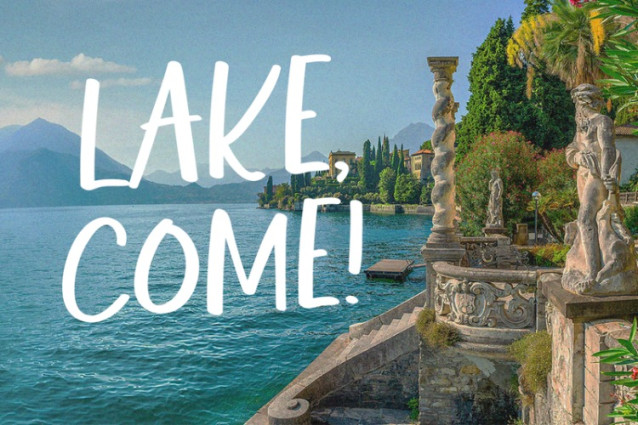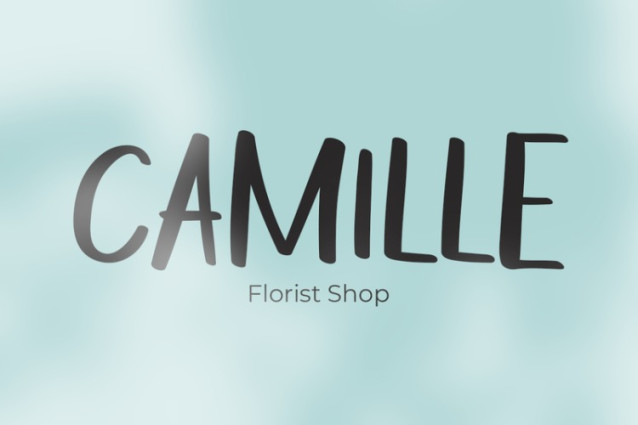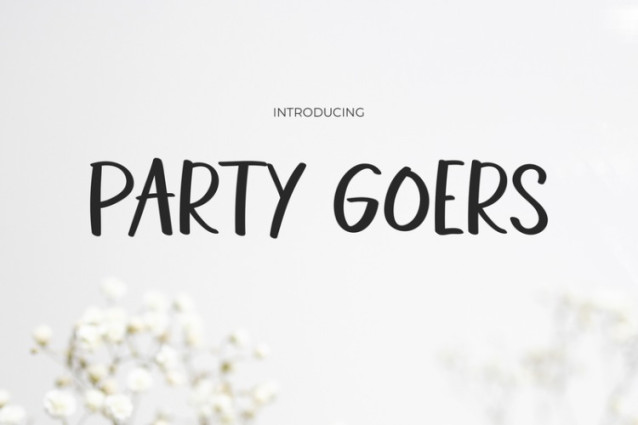
Party Goers Font
Party Goers Font is a fun and stylish script typeface that brings an effortless, modern touch to any design. With its smooth curves and slightly irregular strokes, this font mimics natural handwriting while maintaining a polished, professional look. Moreover, its casual elegance makes it perfect for projects that need a relaxed yet sophisticated feel.
Additionally, Party Goers stands out due to its balanced structure, ensuring great readability while keeping a playful and artistic vibe. The font’s hand-drawn charm makes it suitable for branding, invitations, and social media content. Furthermore, its versatility allows it to be used across both digital and print mediums. Whether you’re working on event branding, wedding designs, or creative marketing materials, this font guarantees a stylish and approachable look.